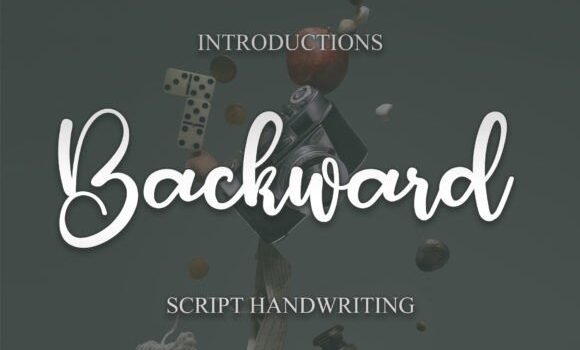
backward
Backward Font – Free Download Introduction to Backward Font Backward is a beautiful handwritten font perfect for product packaging, branding projects, magazines, social media posts, weddings, or just used to express words above the background. 📸 Preview Gallery 4 images